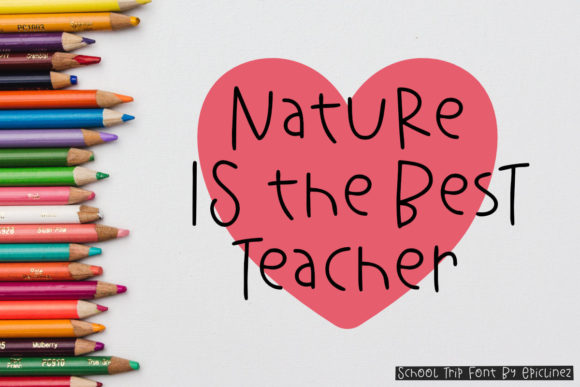
Introduction to School Trip Font
Do you remember the excitement of planning a school trip as a child? The anticipation of a new adventure, the thrill of meeting new friends, and the joy of learning something new. As a designer, you might not be planning a trip to the zoo or a museum, but you can still capture that same sense of excitement and wonder with the right design resource.
That’s where the School Trip Font comes in – a delightful, handwritten typeface that’s perfect for children’s projects. Its quirky, uneven style is sure to add a touch of personality to any creative project, from children’s books and booklets to illustrations and magazines.
With its high-quality design and transparent background, the School Trip Font is a valuable resource for designers looking to add a touch of whimsy to their work. And the best part? It’s available as a free download, making it a must-have design tool for any creative project.
Key Features of School Trip Font
- High-quality design: The School Trip Font is designed to meet the highest standards of typography, making it perfect for creative projects.
- Transparent background: This font features a transparent background, allowing you to easily combine it with other design elements.
- Large character set: The School Trip Font includes a large character set, including uppercase and lowercase letters, numbers, and punctuation marks.
- Unique and creative style: The School Trip Font features a unique and creative style that is perfect for adding a touch of personality to your design projects.
Honest Review: School Trip Font
I recently stumbled upon the School Trip Font and was excited to give it a try for a creative project. The font is a great design resource that offers a high quality, playful vibe perfect for a school-themed design. The transparent background allows for easy customization and integration into any design.
Overall, I think the School Trip Font is a great resource for designers who are looking for a fun and playful font for a creative project. While it has some limitations, I think it’s worth downloading and giving a try.
Pros:
- High quality and unique design
Cons:
- Not as versatile as some other fonts
Tips for Getting the Most Out of School Trip Font
Experiment with different font sizes and colors to find the perfect look for your project. Use the font’s transparent background feature to create a seamless design. Consider combining School Trip Font with other design elements to add depth and interest to your project.
School Trip Font is commonly used for school projects, presentations, and reports. It’s also a great choice for creative projects, such as flyers, posters, and social media graphics. The font’s high-quality design makes it a popular choice for designers and non-designers alike.